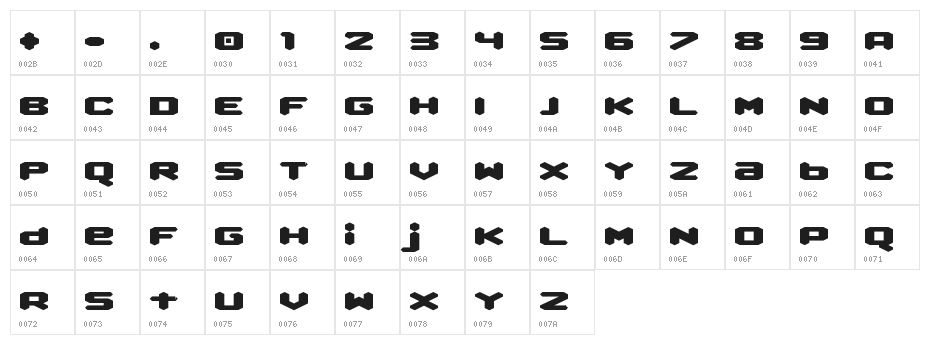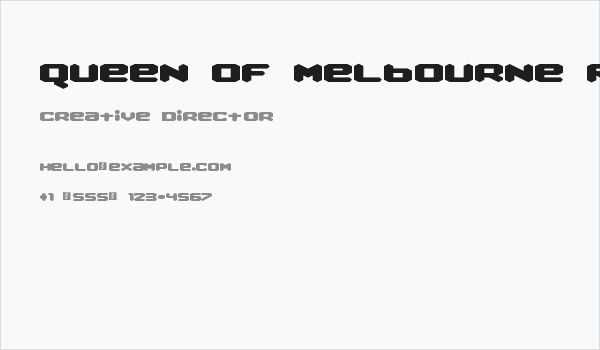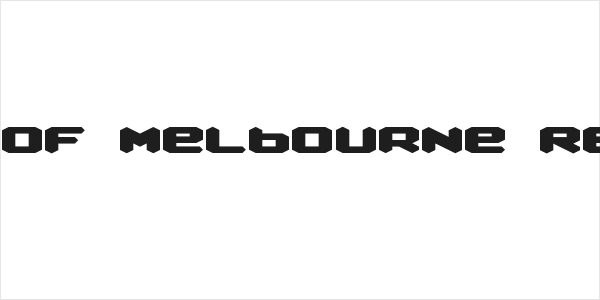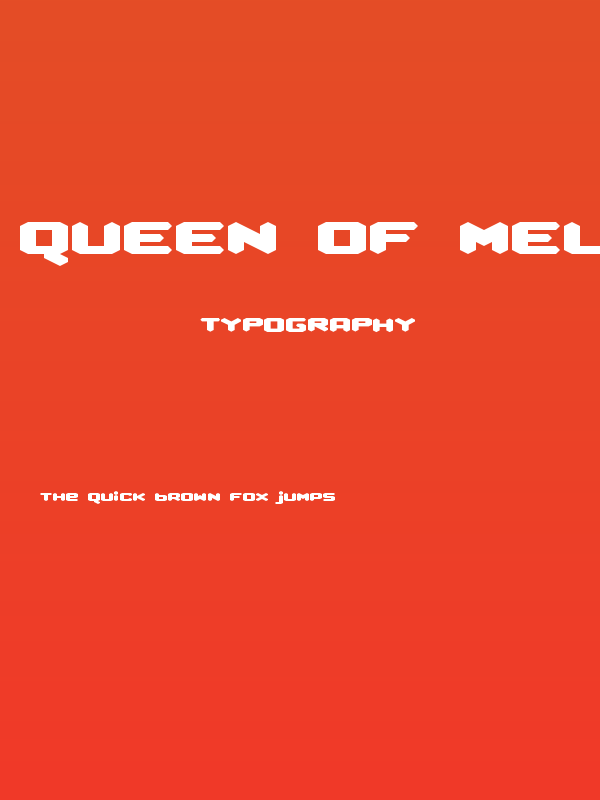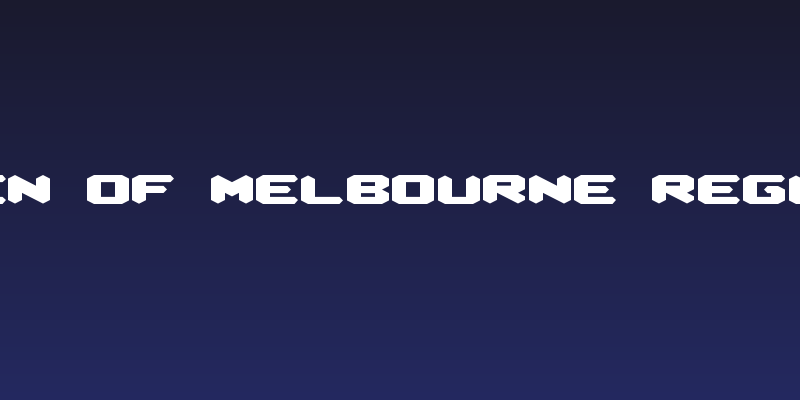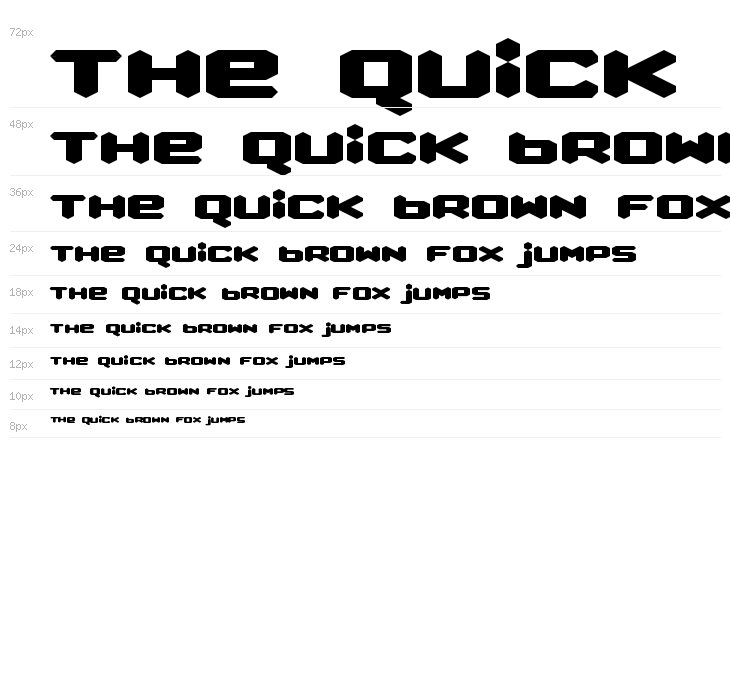
Queen of Melbourne Regular Font
Queen of Melbourne Regular Description
This font features a bold, geometric design with a strong, angular appearance. The characters are constructed with thick, block-like shapes that give it a robust and industrial feel. The uppercase and lowercase letters maintain a consistent style, with sharp edges and a uniform thickness throughout. The numbers and special characters follow the same design principles, ensuring a cohesive look across all elements. The font's unique style makes it stand out, offering a modern and edgy aesthetic that is both eye-catching and memorable.
| Proposed Projects | Ideal for branding, posters, and headlines that require a modern and industrial look. |